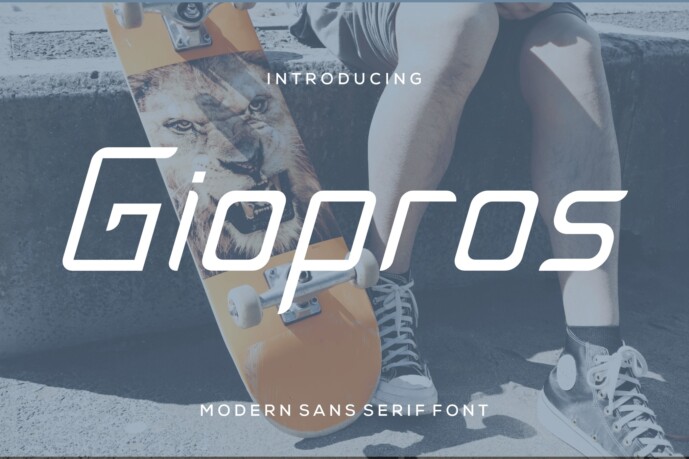
Giopros Font
Designer: alanwarstd
Introducing our new product – Giopros Modern Sans Serif Font
Giopros is a modern sans serif font, modern display font with playful flair, ideal for attention-grabbing headlines, logos, and diverse design projects. Versatile and readable in both digital and print, Giopros adds a dynamic touch to your message.